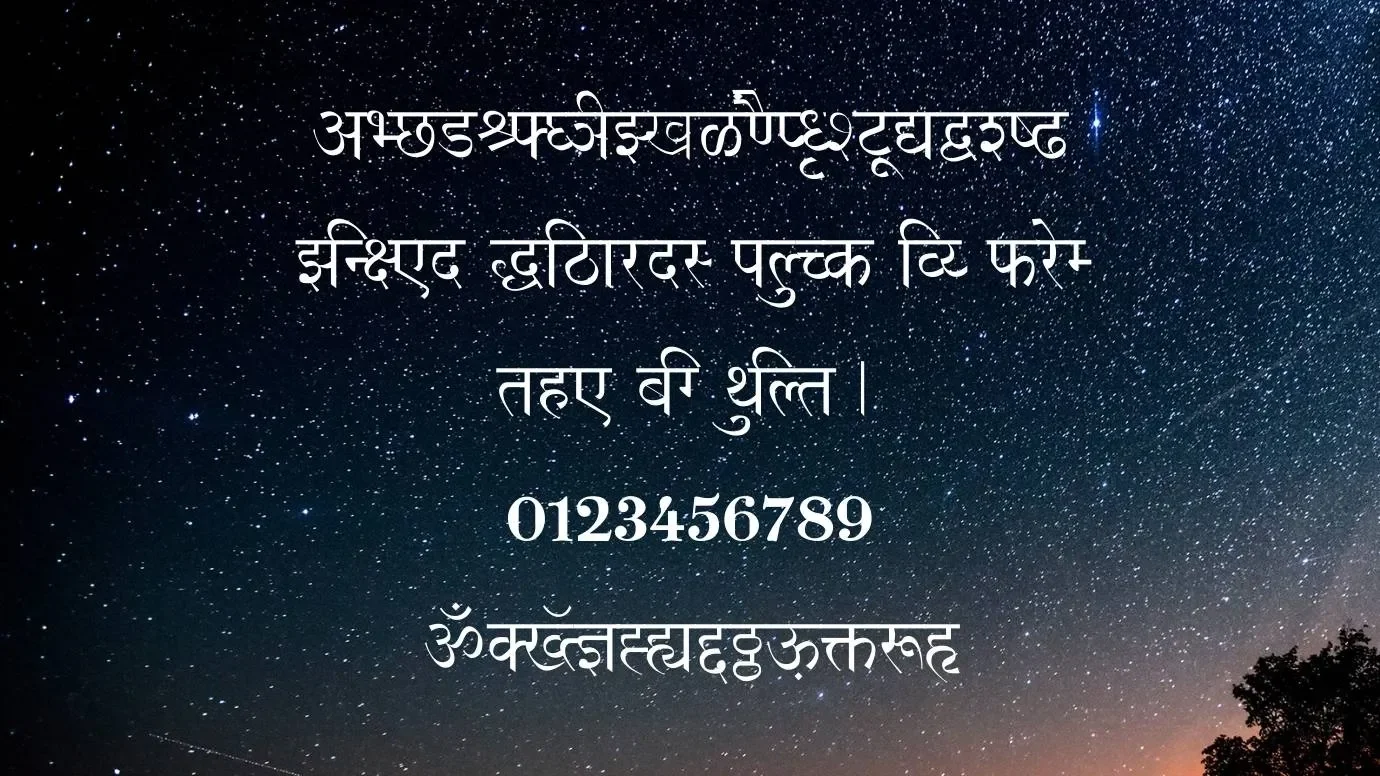
Today, We are going to introduce a new Hindi typeface that was designed by The Indian Type Foundry. This interesting font was released in 1997. This typeface has 178 unique glyphs with 1000 units/em. It comes in more than 56 characters including all lower case and uppercase letters and some special characters.
This interesting and soft look typeface is perfect for movie posters, book covers, quotes, and so on. It gives your text an amazing look due to its clean texture. If you want to find some other similar font family then you can choose Devlys 010 Font and Rajdhani Font.
This fantastic typeface is also best for those designers that are searching for a pleasing font. Due to its uniqueness, this typeface is so popular in the font marketplace. With the help of this typeface, you can complete all the requirements of your customers and lovers.
Reason to Use Shusha Font
You can use this awesome font for website headings and titles. It is also suitable for assignments, invoices, articles, and many other related purposes. This typeface is also best for banners designs, poster designs, logos designs, presentations, and documentation.
By using this crazy typeface, you can create high-quality card designs for various things like greeting cards, invitation cards, and gift cards. You can create amazing and outstanding designs because of their fancy and attractive look.
This typeface is also suitable for product titlings, t-shirt designs, postcards designs, brochure layouts, mug designs, templates, and social media posts. If you want to use it for creating similar designs of this font then you can easily pick Kruti Dev 010 Font.
If you are an official web designer then you can use this font in your projects for the best result and unique look. You can create your simple text into graphics by using this font.
Shusha Font View
Shusha Font Family (Includes Total 03 Types)
- Shusha Regular
- Shusha Bold
- Shusha Bold Italic
What type of font is Shusha Font?
It is a Hindi font that was designed by the Indian Type Foundry. This typeface is most popular in the Hindi font family.